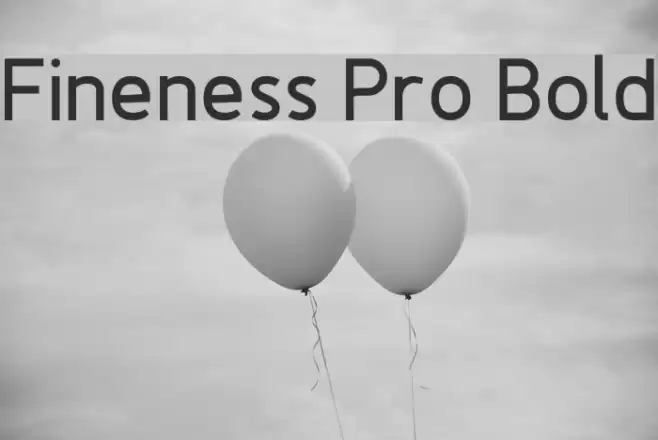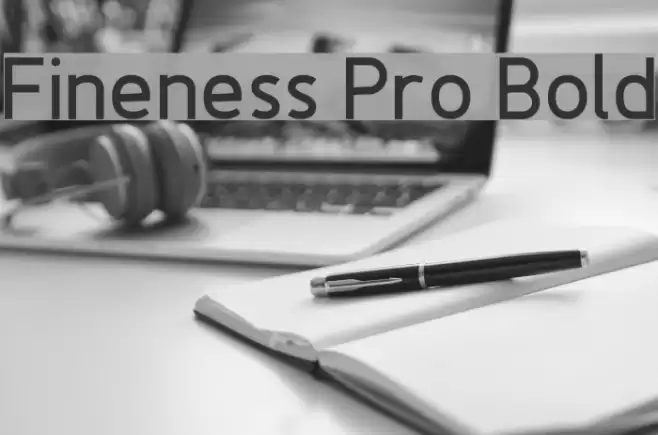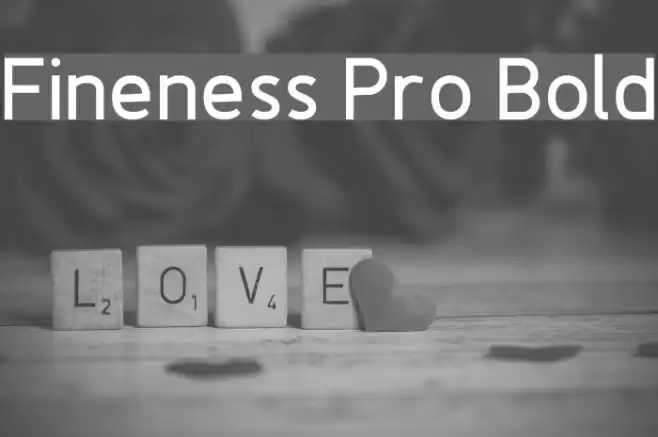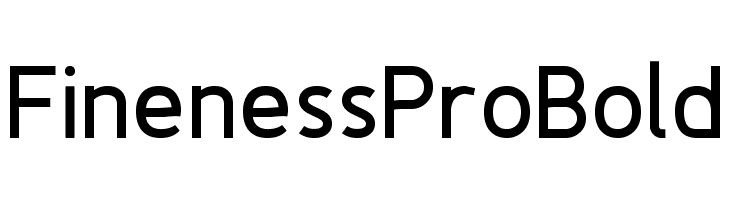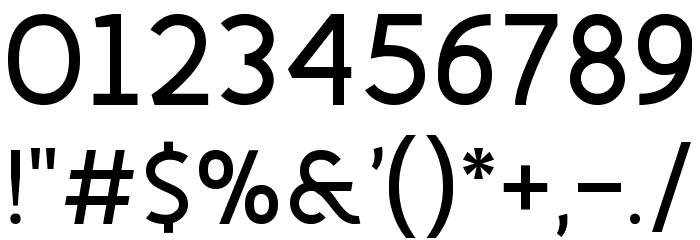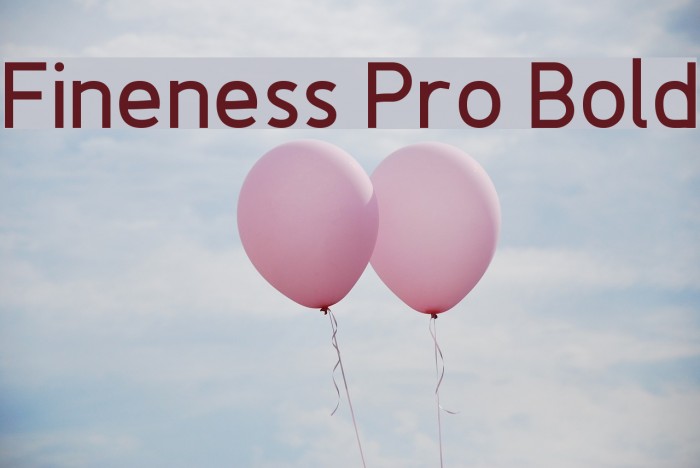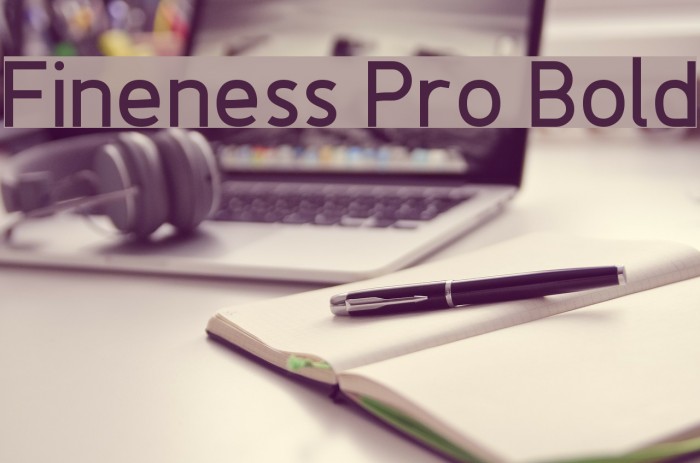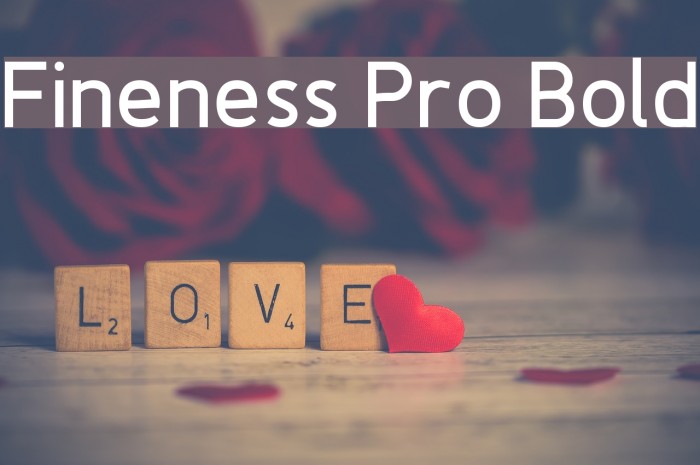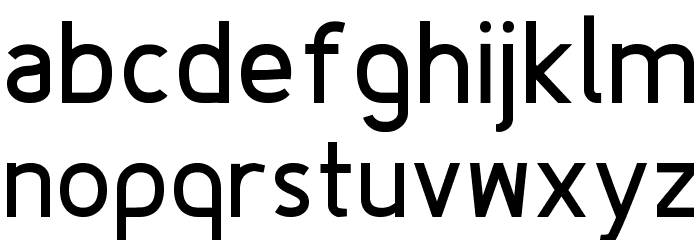
Fineness Pro Bold Font
Fineness Pro Bold Description
This font features a clean and modern sans-serif design with a bold weight. It has a geometric structure that provides a sense of stability and professionalism. The characters are evenly spaced, contributing to its readability and versatility. The uppercase and lowercase letters maintain a consistent style, with smooth curves and straight lines. The numerals are clear and distinct, making them suitable for various applications. Special characters are well-integrated, enhancing the font's utility in diverse contexts.
A bold, modern sans-serif font with geometric precision and excellent readability from Uncategorized fonts.